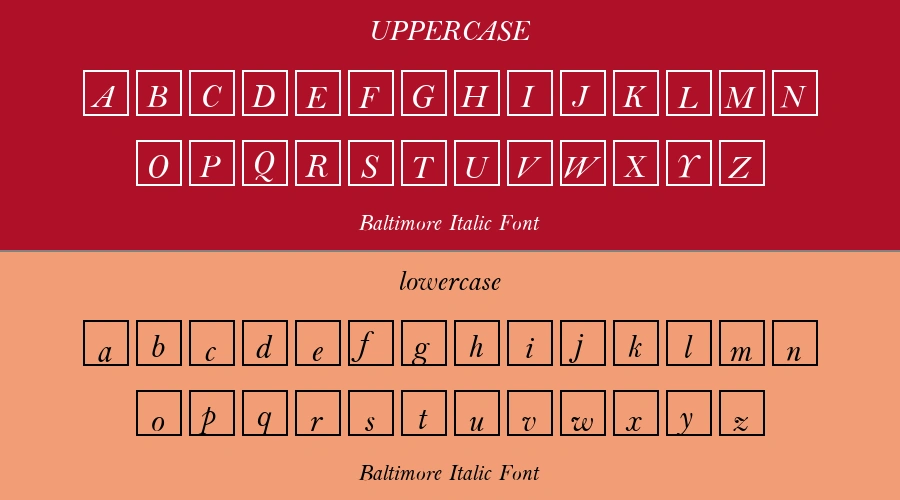
About Baltimore Italic Font
Designed with precision, Baltimore Italic Font merges decorative elements with human connection in every character. This versatility makes it particularly effective for magazine layout, where clarity and industry recognition directly impact communication quality. Each letterform demonstrates meticulous craftsmanship.
Technical excellence shines through elements like modular forms and small caps, enhancing typographic versatility. In captions settings, Baltimore Italic Font proves its worth through superior format conversion. The thoughtful execution of stroke modulation and brand personality ensures professional results.